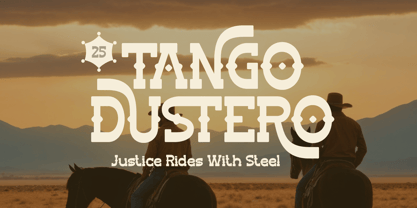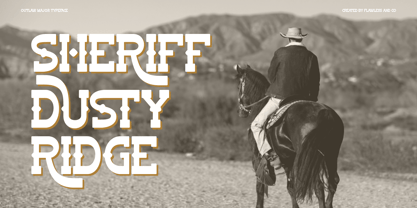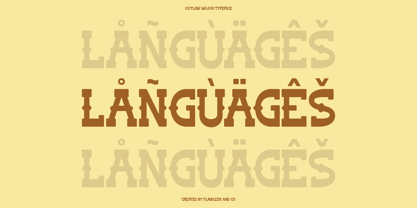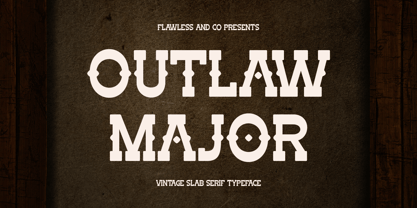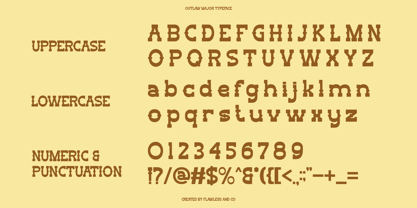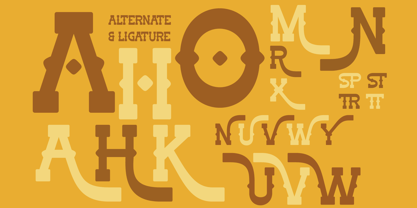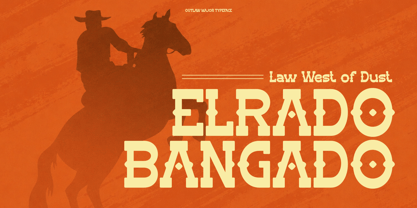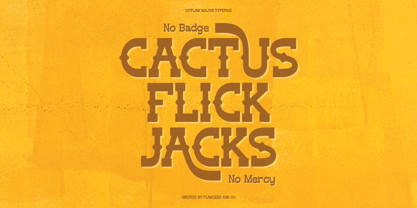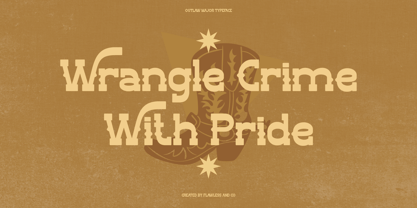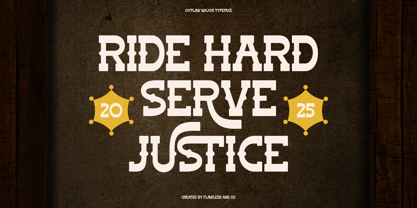
Outlaw Major
A família de fontes Outlaw Major foi desenhada por Achmad Yani e publicada pela Flawlessandco. Outlaw Major contém 1 estilos. Saiba mais sobre esta família
Outlaw Major is a bold and rugged vintage slab serif font that captures the true spirit of the Wild West. With its strong letterforms, unique cutout details, and authentic cowboy aesthetic, this typeface is perfect for designs that need grit, character, and a touch of frontier charm. Whether you’re creating posters, logos, apparel, signage, or branding, Outlaw Major delivers a commanding presence that stands out with style.
Features :
Multilingual, Uppercase alphabet A-Z, Lowercase alphabet a-z, Numbers 0-9, Some punctuation, Alternates & Ligatures